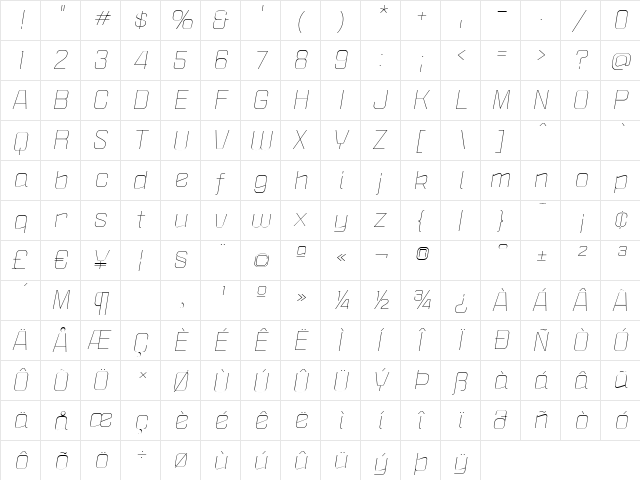
Politica XT Light Italic
Design Context for Politica XT Typeface
Politica XT is a composed and adaptable typeface that performs quietly and consistently across a wide range of design contexts. The dynamic lean of this cut emphasises speed and emphasis in any layout. Its slender proportions lend an understated elegance to any composition.
Pro Tip: Try Politica XT for annotation and caption copy alongside an upright companion — the contrast in angle creates a dynamic but ordered typographic system.